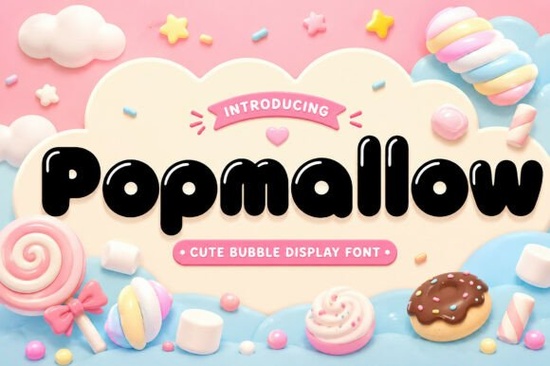
If you're looking for a font that feels like a warm hug from a candy shop, Popmallow delivers exactly that. This playful, bubble-shaped display font brings a soft, rounded charm to any project perfect for designs that want to feel friendly, fun, and full of personality. Whether you’re crafting birthday invites, designing stickers for Cricut machines, or creating social media graphics for a kids’ brand, Popmallow adds instant sweetness without overwhelming your layout.
Why Popmallow stands out for creative projects
What makes Popmallow special isn’t just its look it’s how naturally it fits into so many different types of work. The letterforms are chunky and gently curved, mimicking the softness of marshmallows or blown candy bubbles. That gives it a tactile quality even on screen. It’s not too loud, but it definitely grabs attention ideal when you need a headline or logo to pop without competing with other design elements.
It works especially well in contexts where warmth and approachability matter: think baby product labels, classroom posters, or YouTube thumbnails for children’s content. Because it includes both uppercase and lowercase letters, numbers, punctuation, and multilingual support, you can use it across various languages and formats without missing key characters.
Great for small businesses and crafters
Print-on-demand sellers love fonts like Popmallow because they instantly make products feel unique and handmade. T-shirts, tote bags, mugs, and phone cases all benefit from its cheerful vibe. Add it to a sweet treat-themed design, and suddenly your merch feels like it belongs in a boutique candy shop instead of a generic online store.
Where should you use Popmallow?
- Birthday invitations – Make your party announcements feel more magical
- Sticker packs – Perfect for digital planners or physical sticker sheets
- Product packaging – Gives treats, toys, or kids’ items a playful edge
- Greeting cards – Ideal for baby showers, first birthdays, or thank-you notes
- Classroom materials – Adds fun to worksheets and bulletin boards
- Branding for kid-friendly brands – Builds trust through visual friendliness
You’ll also find it useful in book covers for children’s stories, flyers for local events, and even social media posts aiming to stand out in a crowded feed.
How does it compare to similar fonts?
If you’ve explored other playful display fonts, you might have seen options like Doodle Playground, which leans more into hand-drawn whimsy, or Rough Grunge if you prefer edgier textures. Then there’s Gothic for bold, dramatic statements though it lacks Popmallow’s softness.
For a contrast in tone, Athletic offers energy and motion, great for sports themes but again, it doesn’t bring the same cozy, sugary vibe. Popmallow sits in a sweet spot between cute and clear, making it versatile without losing character.
Final thoughts: Is Popmallow right for you?
If your goal is to add warmth and charm to designs aimed at kids, sweet lovers, or anyone who appreciates a little joy in their visuals, this font is a strong choice. It’s not flashy, but it’s memorable. It doesn’t try to do everything instead, it does one thing really well: make things feel fun and inviting.
For creatives who value simplicity, clarity, and emotional tone in typography, Popmallow deserves a place in your digital toolkit.
- Use it on projects where a light, joyful tone fits like birthday themes or kids’ branding
- Pair it with simple, neutral backgrounds to let the font shine
Once you’ve used it a few times, you’ll notice how quickly it becomes a go-to for anything needing a smile-inducing touch.